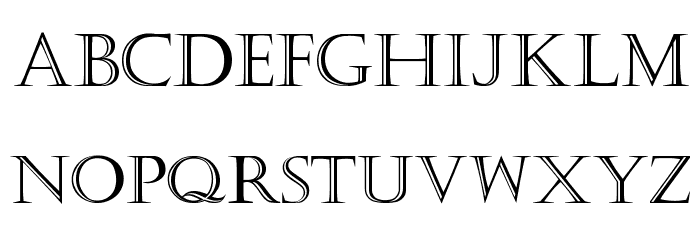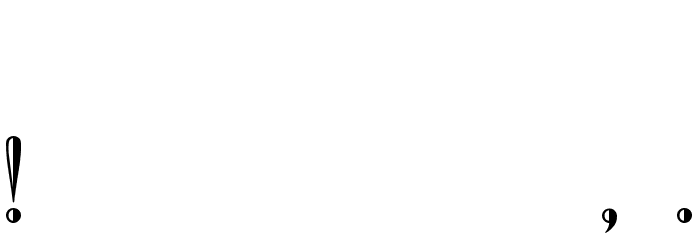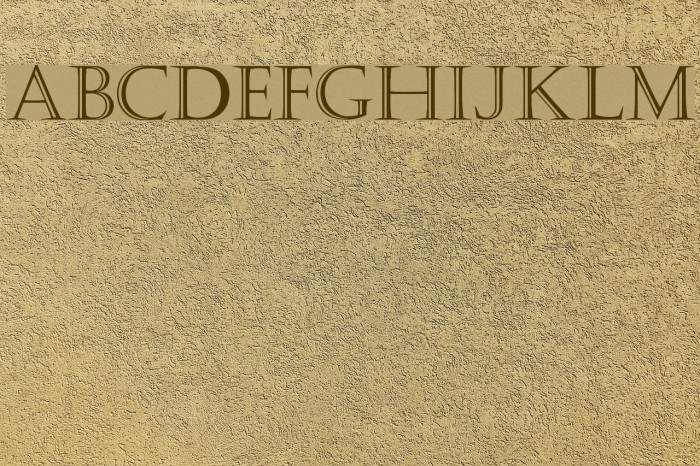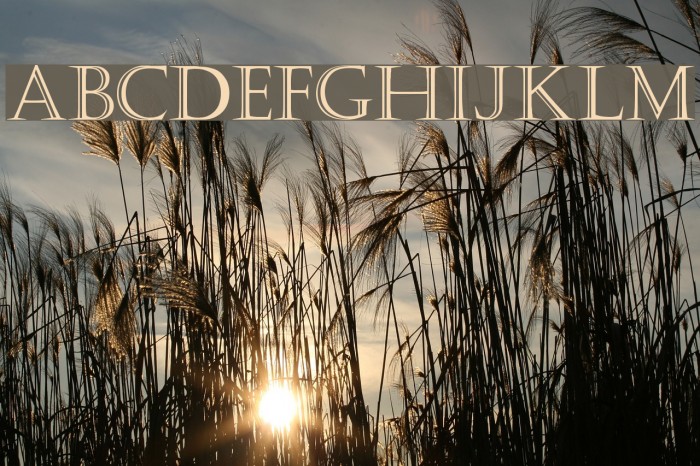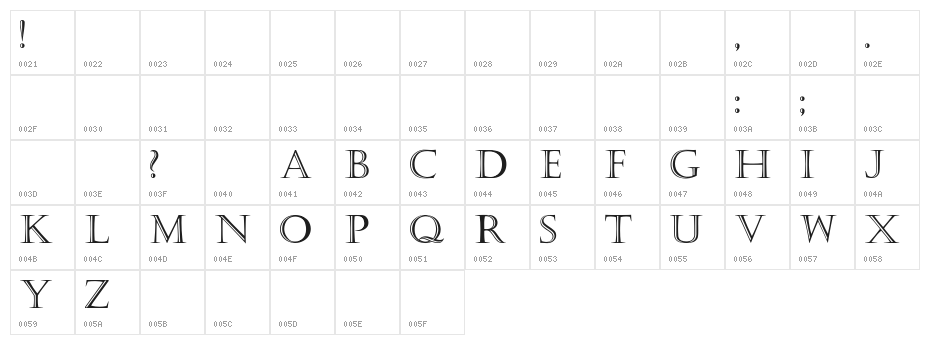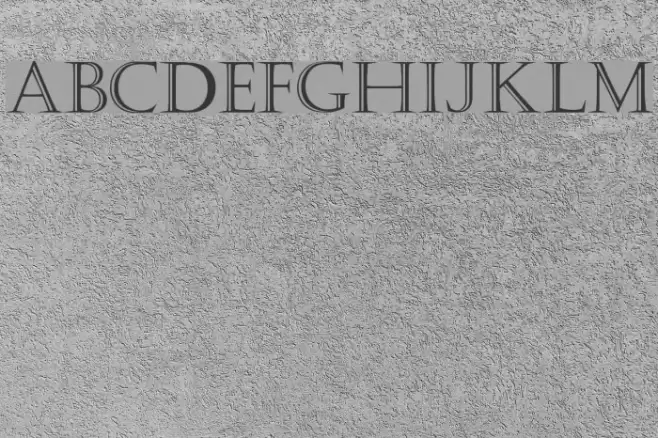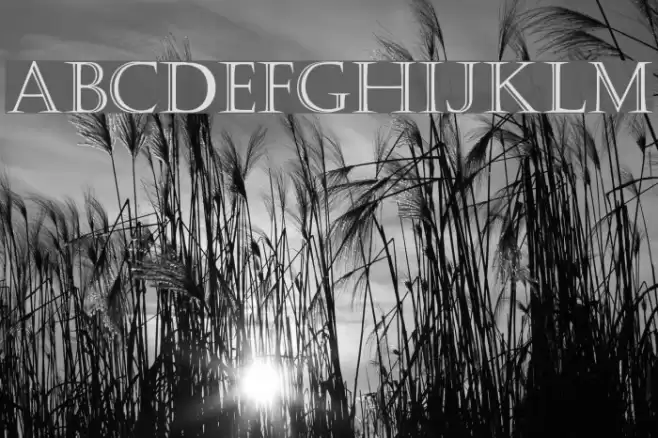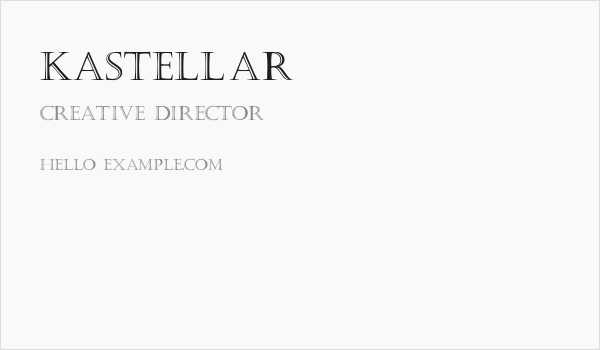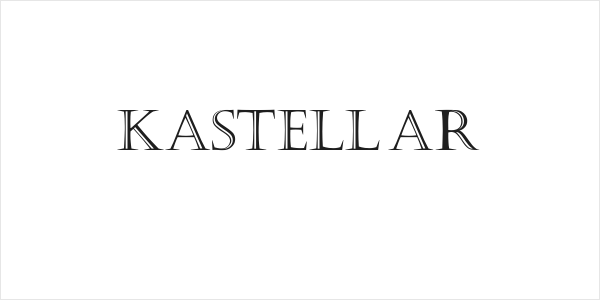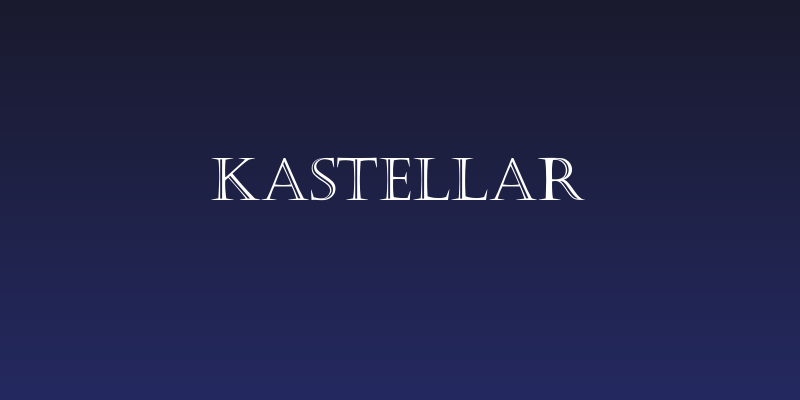
Kastellar Font
This font features a classic and elegant serif design, characterized by its thin, elongated serifs and high contrast between thick and thin strokes. The uppercase letters exhibit a refined and sophisticated appearance, with a slight flair at the ends of the strokes, adding a touch of grandeur. The overall design is reminiscent of traditional Roman typefaces, making it suitable for formal and prestigious applications. The spacing between characters is balanced, ensuring readability while maintaining a stylish aesthetic. The font's structure is both timeless and versatile, making it ideal for a variety of design projects that require a touch of elegance and tradition.
A classic serif font with high contrast and elegant, elongated serifs.
- Proposed Projects: Ideal for book covers, formal invitations, certificates, and branding materials that require a sophisticated touch.
- Overall Style: Classic
- Use Case: Headlines, Logos, Formal documents